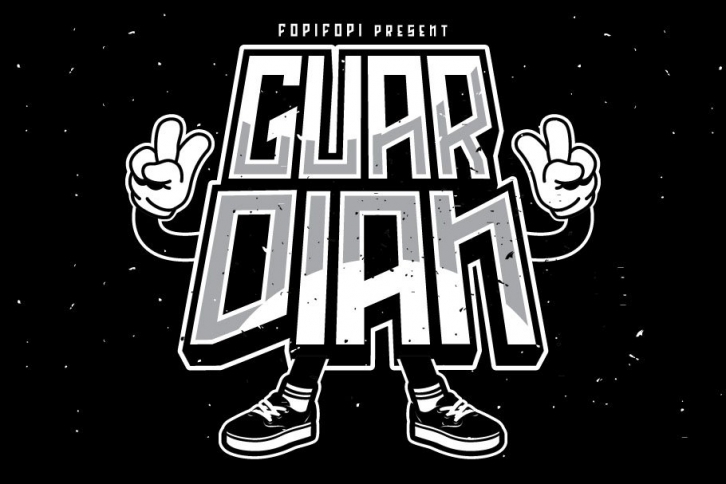
Guardian Font was inspired from Greek Glyphs & Street Wear Design could help to good display, uses for Vector Stock, lyric music video, album cover, labeling, clothing, movie sceen, band logo,film title, gigs, or music poster, the skies is your limit :). It comes with 246 characters included Uppercase, Lowercase, Numbers, Punctuations, Currency, and Accents. ;)